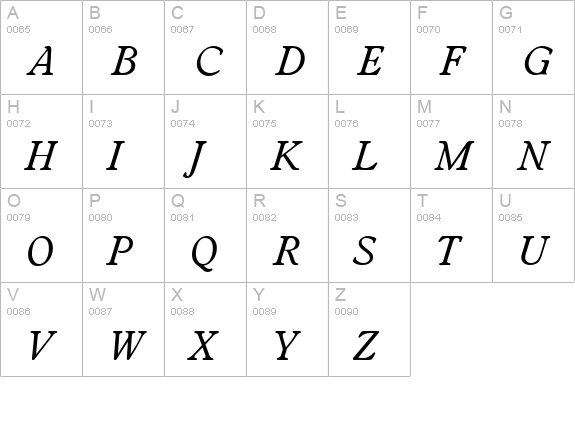
WorcesterSerial-Italic is a distinctive, italic variant in the WorcesterSerial typeface family \xE2\x80\x94 well suited to design and typography projects.